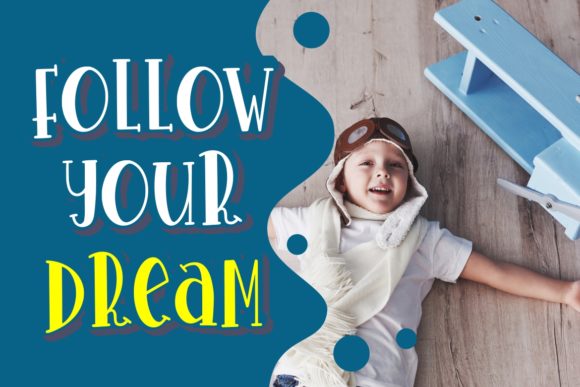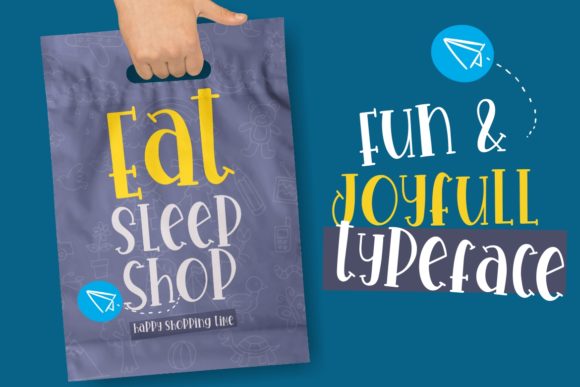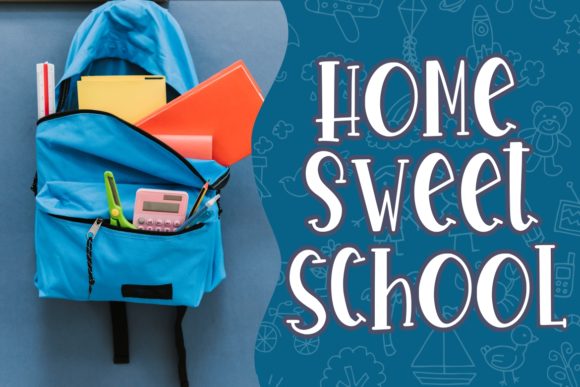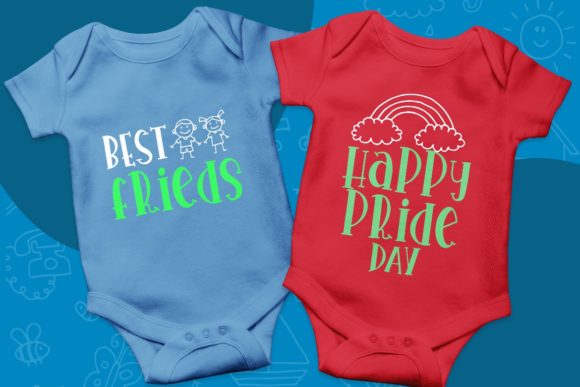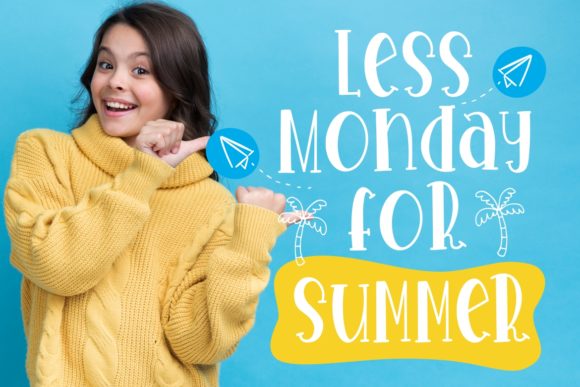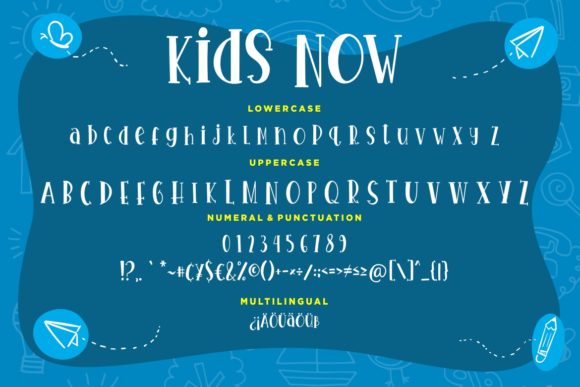
Introduction to Kids Now Font
Kids Now is a sweet and friendly display font.
This enchanting font will turn any creative idea into a true standout Get creative with its childlike playfulness, and use it to brighten up any kids and school project.
Key Features of Kids Now Font